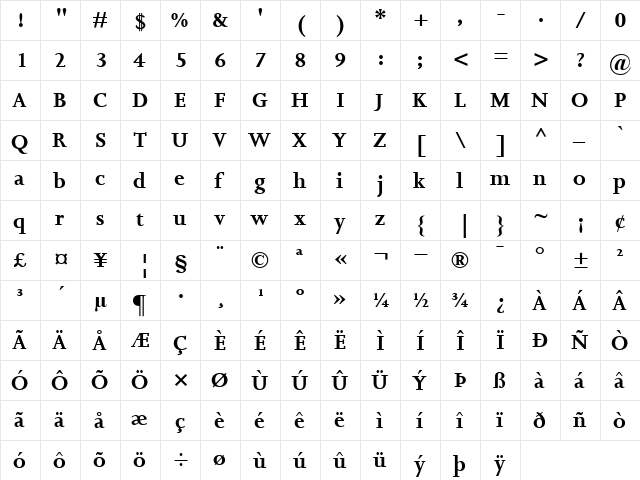
JoannaMT Bold
Design Context for JoannaMT Typeface
JoannaMT offers clean, dependable letterforms without strong stylistic allegiance, making it a practical choice for designers who need flexibility. The heavy weight commands attention and anchors typographic hierarchies.